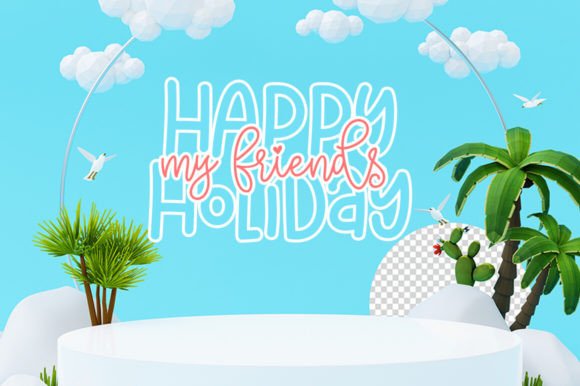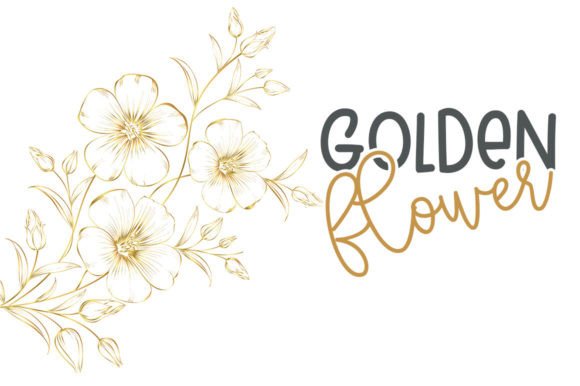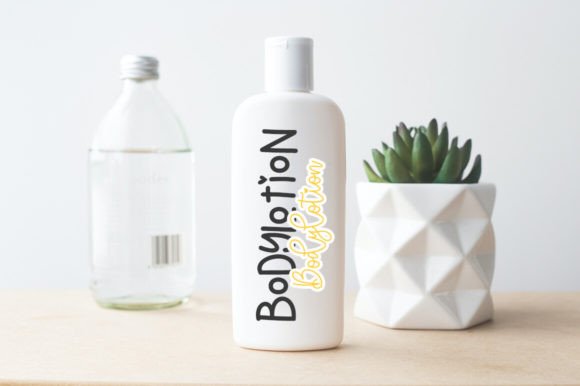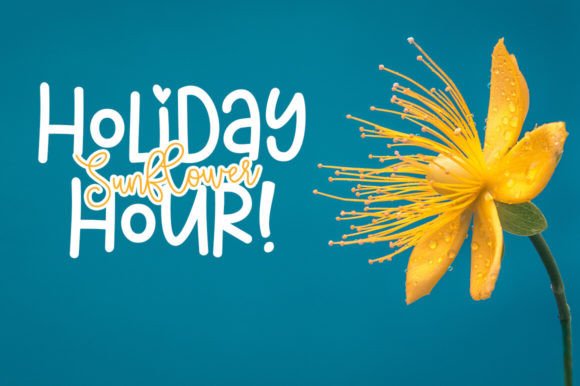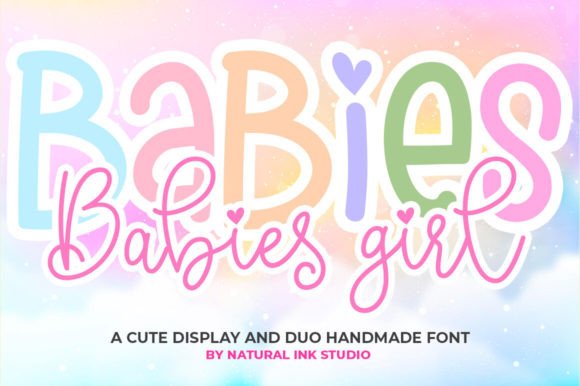
Babies Girl Font: Elevate Your Designs with a Touch of Elegance
Are you on the lookout for a font that exudes elegance, sophistication, and a dash of playfulness? Look no further than the Babies Girl Script Font Duo. This contemporary, fashionable script font is making waves in the design world with its abstract and spontaneous baseline, chic and feminine aesthetics, and versatility. In this article, we’ll dive into the world of Babies Girl Font and explore its features, uses, and benefits for designers and crafters.
Introducing Babies Girl Script Font Duo
The Babies Girl Script Font Duo, also known as Hailey Script, is a stunning example of modern typography. Its unique blend of abstract and spontaneous elements creates a distinctive look that’s both stylish and eye-catching. The font’s chic and feminine aesthetics make it perfect for designs that require a touch of elegance, from wedding invites and thank-you cards to quotes, greeting cards, logos, and business cards.
One of the standout features of Babies Girl Script Font Duo is its versatility. This font is ideal for traditional ink prints, as well as being a perfect match for fluid watercolor designs. Whether you’re creating digital or print materials, this font is sure to elevate your designs and add a touch of sophistication. From formal events to casual gatherings, Babies Girl Font is the perfect choice for any project that requires a dash of elegance.
Babies Girl Script Font Duo offers a rich variety of features that make it a must-have for designers and crafters. Some of its key features include:
- Decorative initial letters and terminals: Add a touch of luxury to your designs with beautifully crafted initial letters and terminals.
- Diverse alternatives: Experiment with different variations of the font to create unique and eye-catching designs.
- Multilingual support: Reach a global audience with a font that supports multiple languages.
Uses for Designers and Crafters
Babies Girl Script Font Duo is perfect for a wide range of design projects, including:
- Wedding invites and stationery: Create beautiful and elegant wedding invitations, save-the-date cards, and other stationery with this stunning font.
- Thank-you cards and quotes: Add a touch of sophistication to your thank-you cards and quotes with Babies Girl Font.
- Greeting cards and gift tags: Create stunning greeting cards and gift tags with this versatile font.
- Logos and business cards: Elevate your brand with a custom logo and business card design featuring Babies Girl Script Font Duo.
Why Choose Babies Girl Font?
So, why choose Babies Girl Script Font Duo for your design projects? Here are just a few reasons:
- Unique and eye-catching: This font is sure to grab attention with its distinctive and stylish design.
- Versatile: Use Babies Girl Font for a wide range of design projects, from print materials to digital designs.
- Elegant and sophisticated: Add a touch of luxury to your designs with this chic and feminine font.